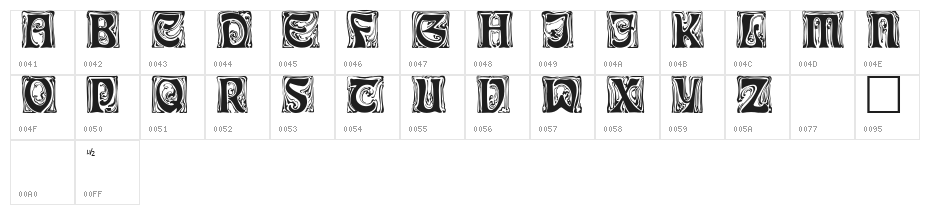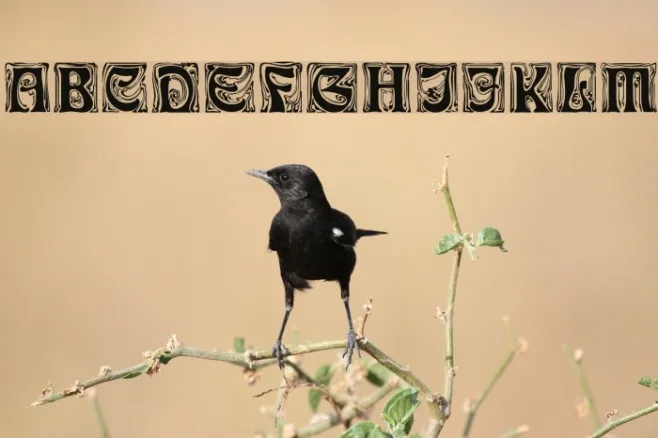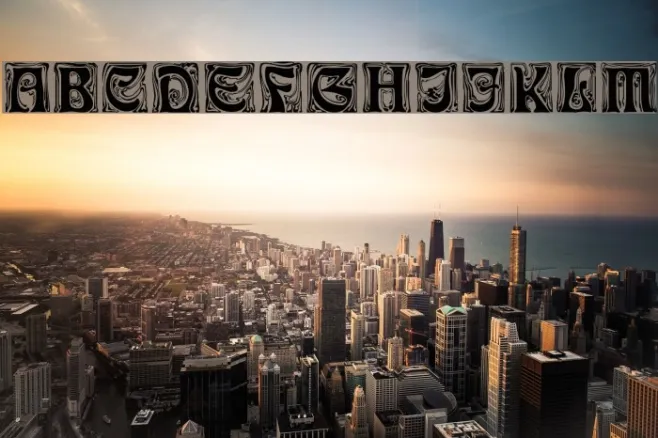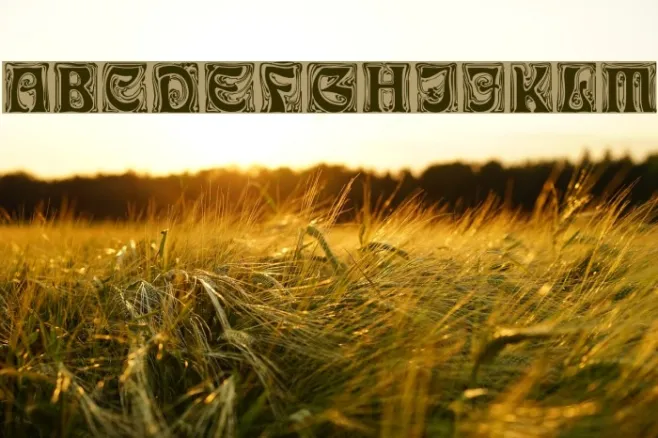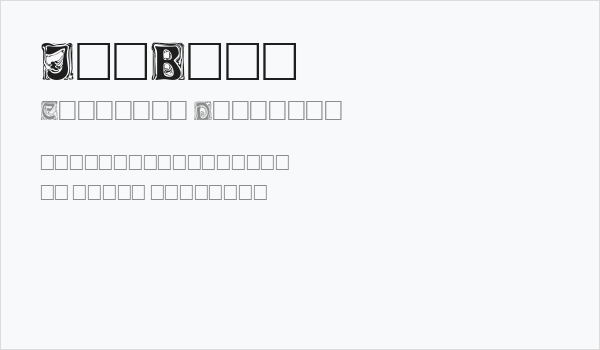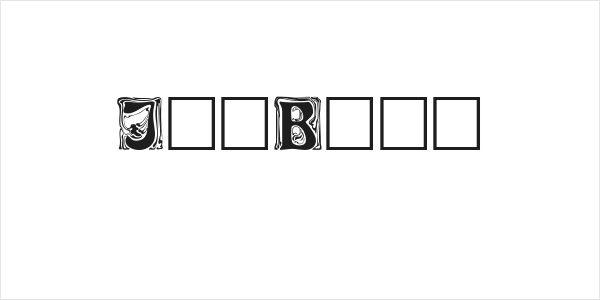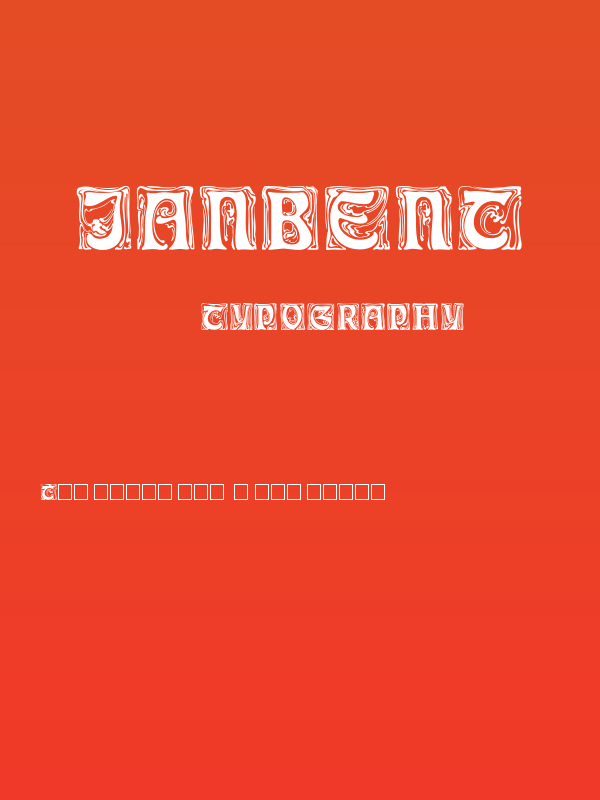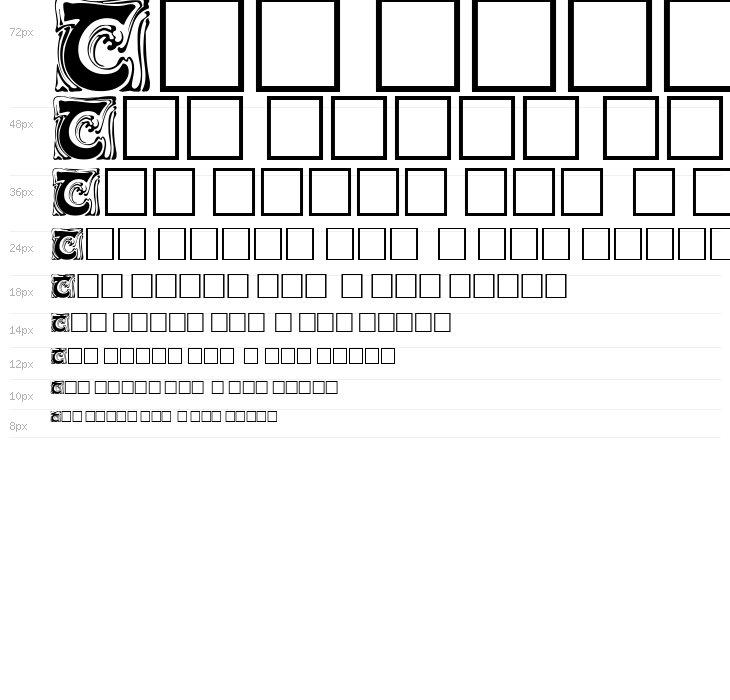
IanBent Font
IanBent Description
This font features a highly decorative and intricate design, characterized by swirling patterns and bold outlines that give each letter a unique and artistic appearance. The uppercase letters are particularly ornate, with each character displaying a distinct blend of curves and edges that create a sense of movement and fluidity. The font's style is reminiscent of abstract art, making it stand out as a statement piece in any design. The boldness of the characters ensures readability while maintaining an artistic flair. This font is ideal for projects that require a touch of creativity and elegance, such as event posters, artistic branding, or unique logo designs.
| Proposed Projects | Ideal for event posters, artistic branding, unique logo designs, and creative projects. |